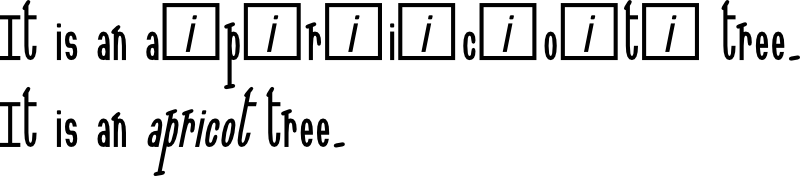
Italicizer Maquette font
Here is a font that I have made today.
I refer to a post by me in a thread in the Unicode mailing list.
This font is a maquette to try out the idea.
I have encoded the special character at U+EA60 (it is Alt 60000 in case that helps anyone) with a visible glyph.
The idea is to typeset some text and then when one wants a word in italics to include a U+EA60 character after each letter of the character.
Here is the OpenType code that I used.
Here is some test text. In order to try it out, please copy and paste into an application that has OpenType liga table support and then format the text using the attached font and turn on the liga table.
Ah, the U+EA60 characters each show as a space. I hoped that they would each show as either a black rectangle or a black square with EA60 in them.
So here is a png graphic of without liga on and with liga on.
Here are some letters, each followed by a U+EA60 character.
As a result of reading the following post in the thread in the Unicode mailing list,
I have made a version of the font that uses Variation Selector 14.
Here is the OpenType code.
Why not just use the italics button on your word processor it’s much simpler.
Because this is about plain text not rich text as is used in a word processor program to store information about when to use italics.
The rendering of formatting from a plain text file has already been done.
Alas the idea was not accepted by the Unicode Technical Committee.
Please see entry 2019-1 in the following document.